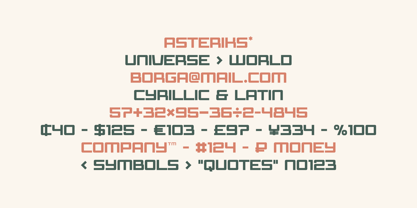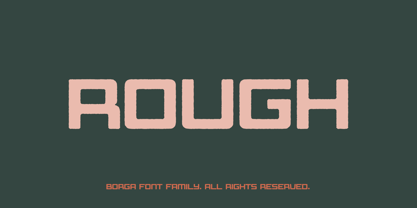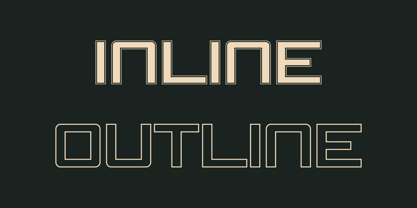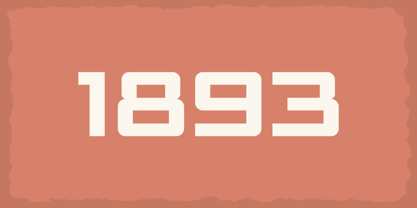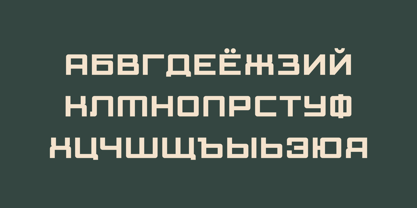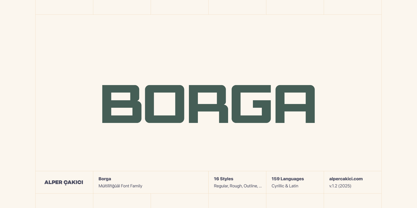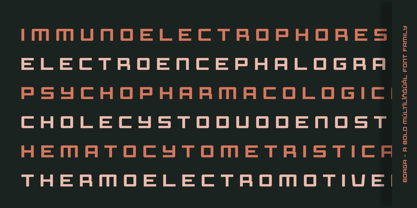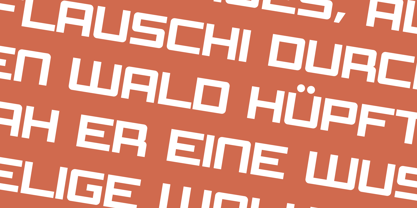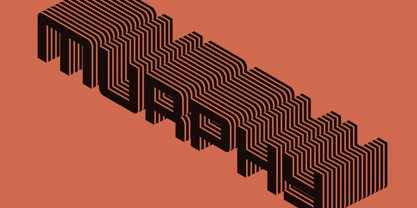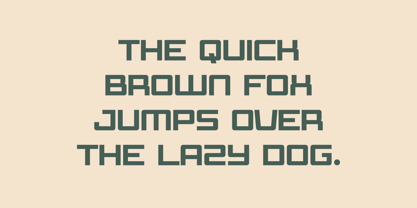
Borga
by AlperCakici
The Borga Font Family was designed by Alper Çakıcı and published by AlperCakici. Borga contains 16 styles and family package options.
Borga is a powerful geometric sans serif type family designed for clarity, character, and creative flexibility. Featuring 16 expressive styles—from Regular, Rounded, Rough, Inline, and Outline to their Italic counterparts—this collection delivers modern, commanding typography for branding, posters, logos, and editorial layouts. With support for 159 languages, including complete Cyrillic coverage, Borga blends precise geometry with excellent readability across both print and digital environments. Whether you need a headline that stands out or a refined visual identity, Borga brings bold, contemporary design to every project.